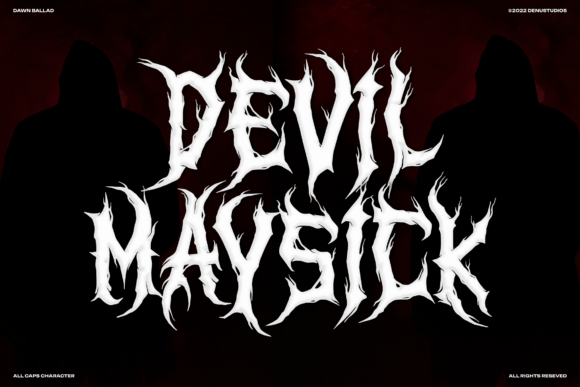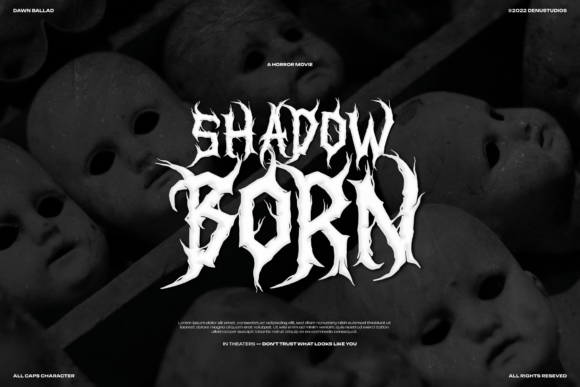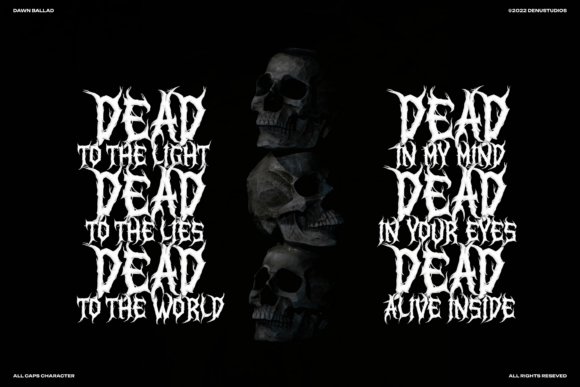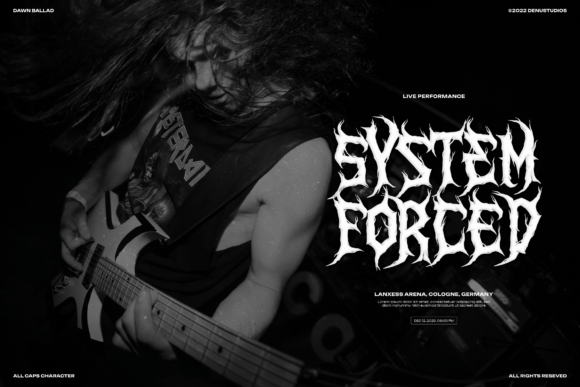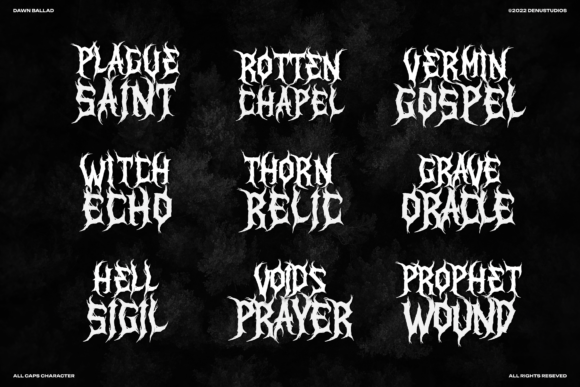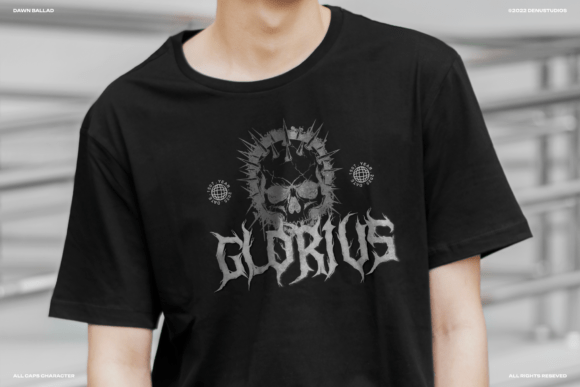
Unleash Your Creative Darkness: Introducing Dawn Ballad Font
In the realm of typography, few fonts evoke the raw energy and unbridled intensity of black metal music. Dawn Ballad, a blackletter font crafted by Denustudios, is a masterful creation that embodies the dark, edgy spirit of this extreme music genre. Designed to infuse your designs with an uncompromising character, Dawn Ballad is the perfect choice for projects that demand visual aggression and gothic flair.
The Essence of Black Metal Blackletter
Dawn Ballad is more than just a font – it’s an experience. With its sharp details and handcrafted metal aesthetic, this display typeface is engineered to thrive in creative realms where bold, chaotic energy is a must. The font’s blackletter style, characterized by dramatic flourishes and intricate lettering, pays homage to the dark, mystical world of black metal. Whether you’re designing logos, brand identities, t-shirts, posters, mugs, or album covers, Dawn Ballad sets the tone with an unmistakable air of rebellion and nonconformity.
The versatility of Dawn Ballad is one of its most compelling features. This font is not limited to a specific design niche; rather, it’s a tool that can elevate a wide range of creative projects. Here are just a few examples of how you can harness the power of Dawn Ballad:
- Logos and Brand Identities: Create a lasting impression with a logo that exudes darkness and intensity. Dawn Ballad’s bold, gothic aesthetic is perfect for brands that want to stand out in a crowded market.
- T-Shirts and Merch Design: Give your apparel designs a rebellious edge with a font that’s tailor-made for the underground music scene.
- Posters and Flyers: Promote your events, concerts, or festivals with eye-catching posters that showcase the raw energy of Dawn Ballad.
- Book Titles and Labels: Add a touch of darkness to your book covers, labels, or packaging with a font that’s both haunting and beautiful.
- Greeting and Invitation Cards: Create unique, handmade-style cards that will leave a lasting impression on the recipient.
- Photography Watermarks: Protect your images with a discreet, yet striking watermark that reflects your artistic vision.
Unleash Your Creative Darkness
Dawn Ballad is more than just a font – it’s a gateway to a creative world where darkness and beauty coexist. With its brutal yet beautiful aesthetic, this font invites you to experiment with new ideas, push boundaries, and challenge the status quo. Whether you’re a designer, artist, or crafter, Dawn Ballad offers a unique opportunity to tap into your creative potential and produce work that’s both haunting and mesmerizing.
In conclusion, Dawn Ballad is a game-changing font that embodies the raw energy and unbridled intensity of black metal music. With its sharp details, handcrafted metal aesthetic, and PUA-encoded characters, this font is perfect for designers and crafters who want to infuse their projects with darkness, edge, and uncompromising character. So why wait? Unleash your creative darkness and experience the brutal beauty of Dawn Ballad for yourself.